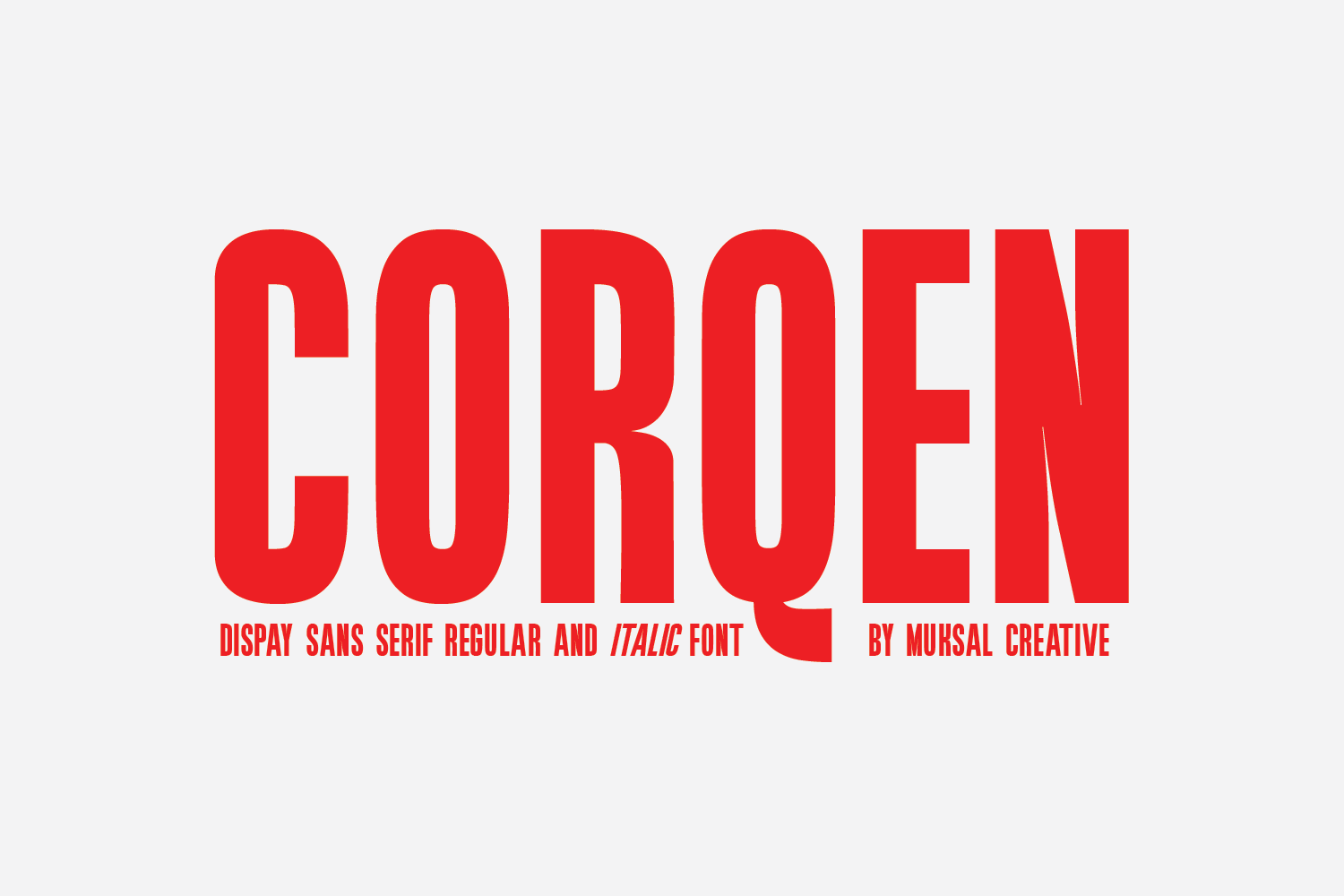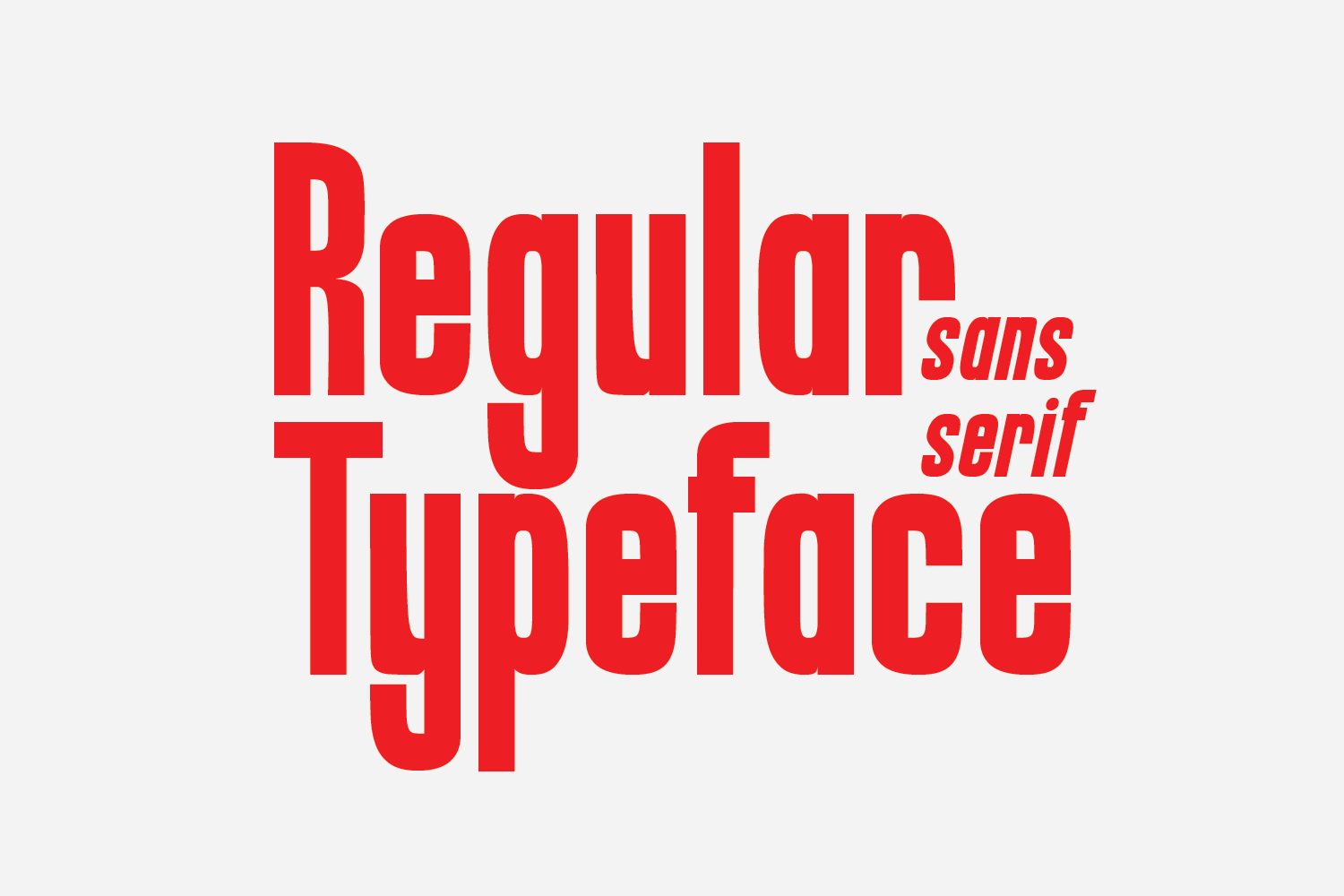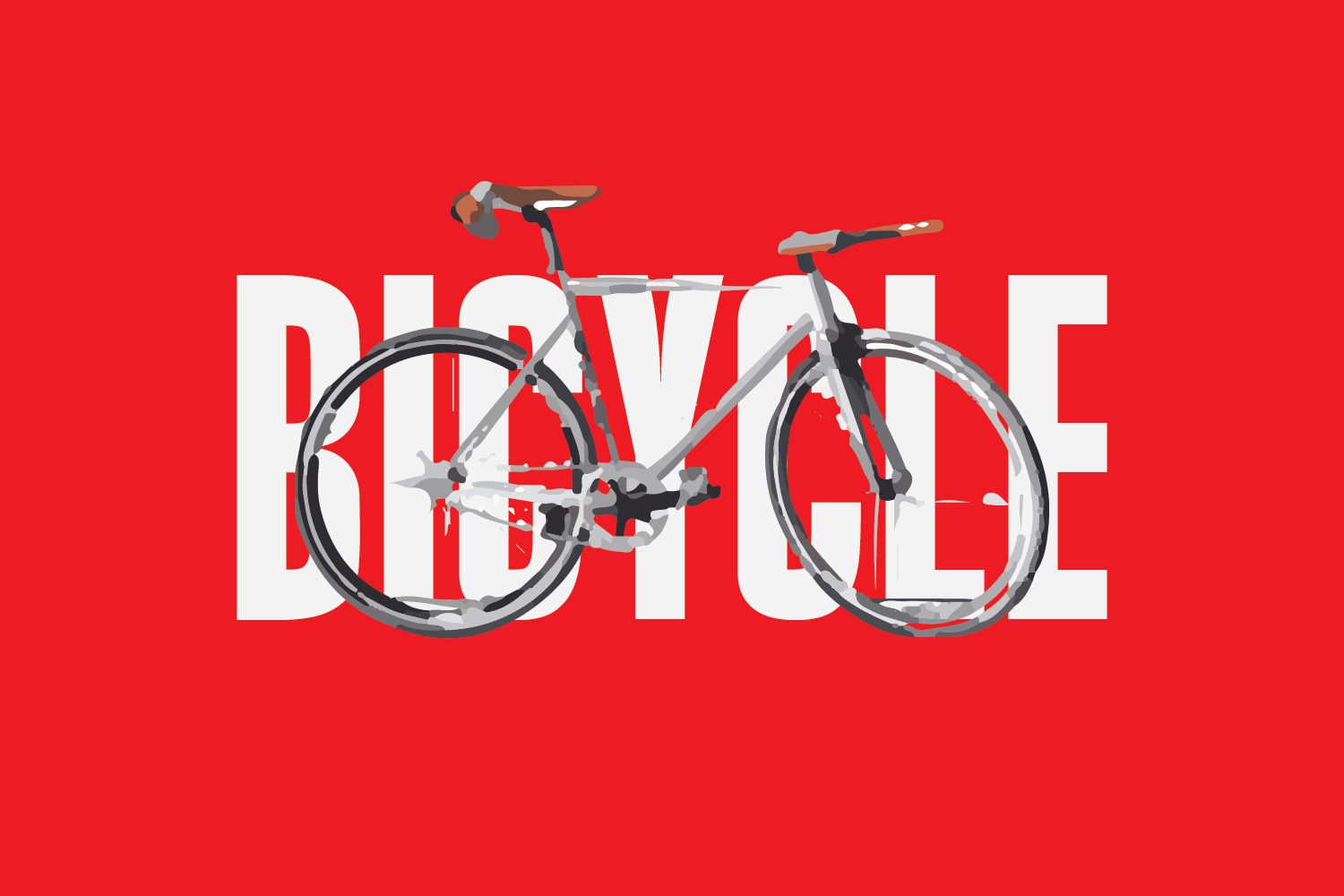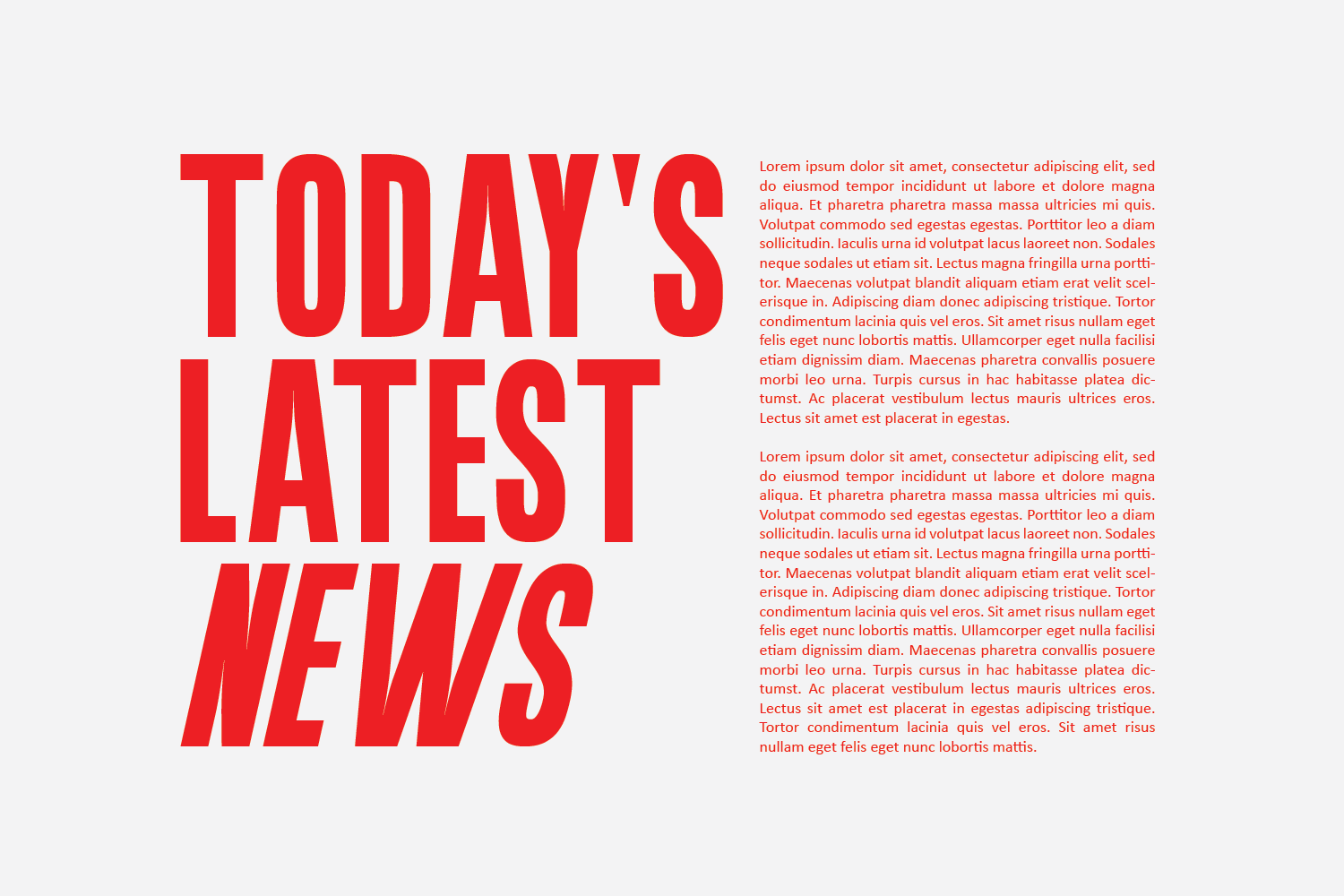
Corqen Free Font
Corqen Free Font is a modern and trendy display font. Incredibly versatile, this font will be suitable for a wide spectrum of applications. This free typeface was designed by a talented Muksal mina. If you like it don’t forget to check out the full version.